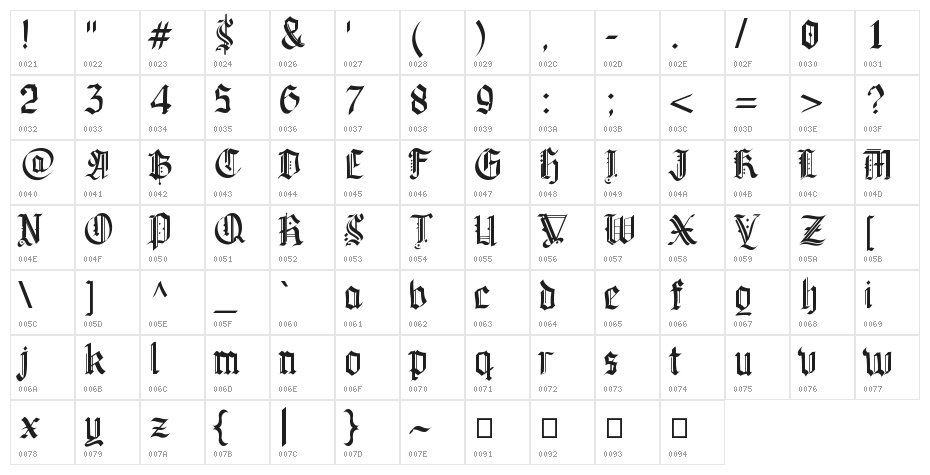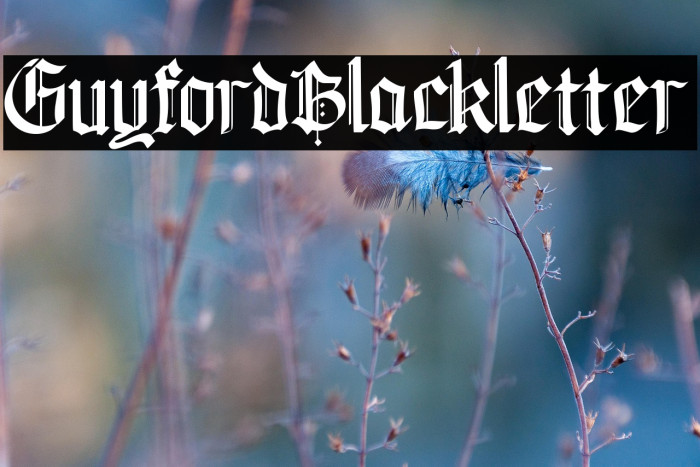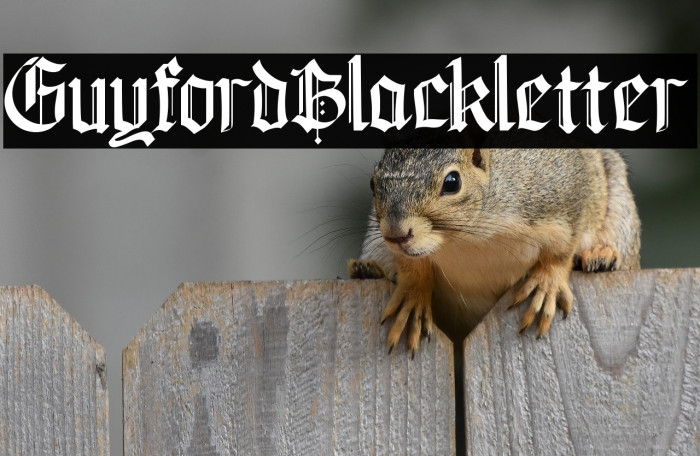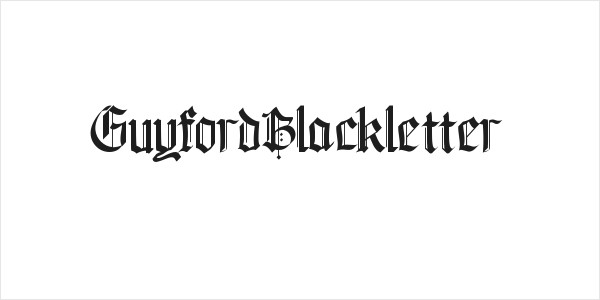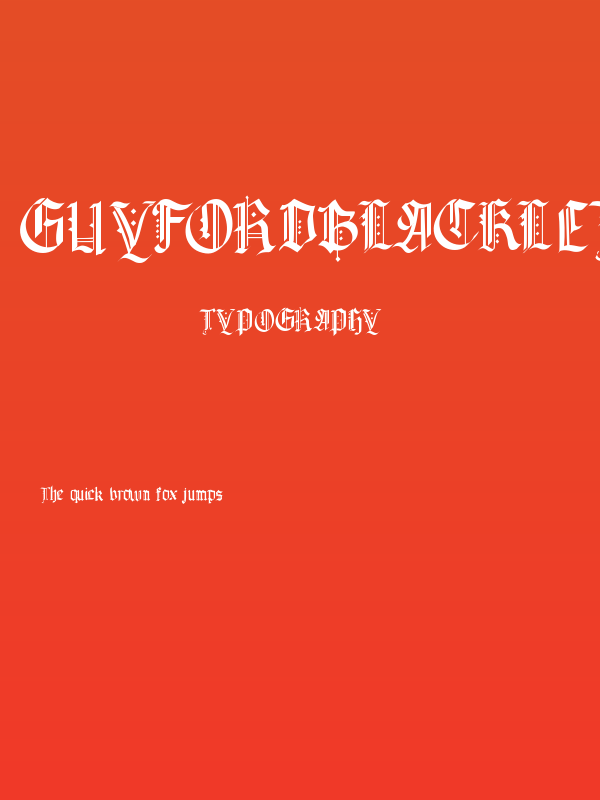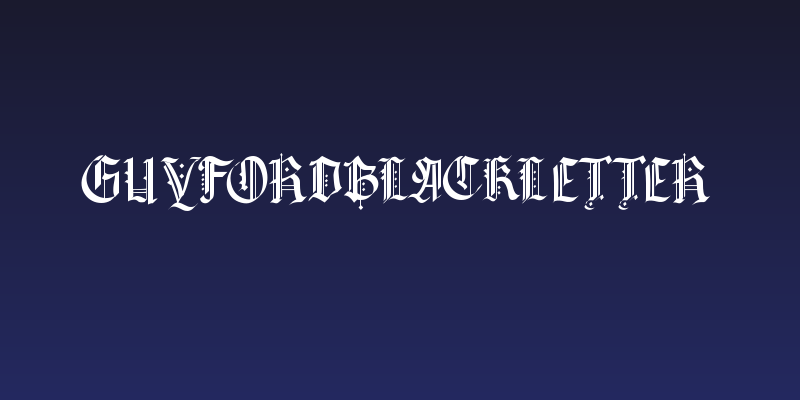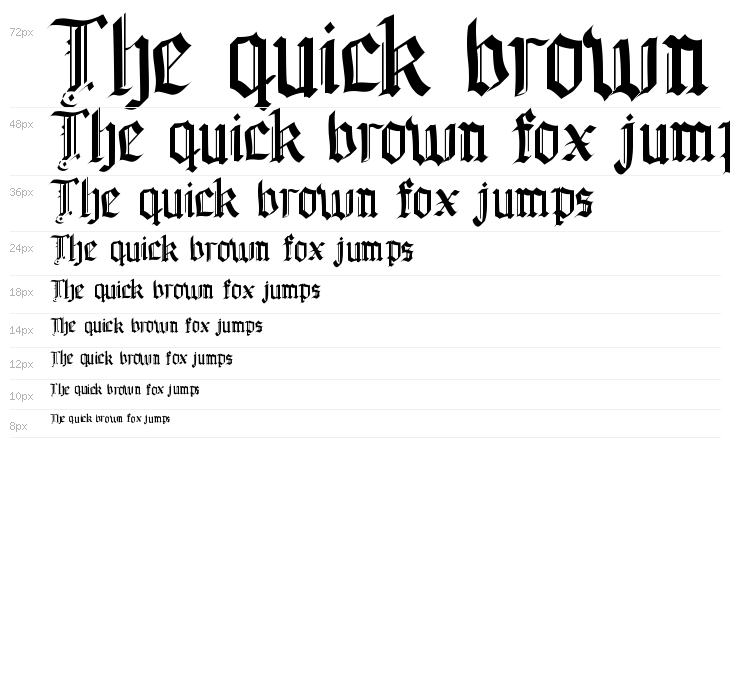
GuyfordBlackletter Font
GuyfordBlackletter Description
This font is a striking example of Blackletter style, characterized by its intricate and ornate design. The uppercase letters exhibit sharp, angular lines with elaborate flourishes, while the lowercase letters maintain a consistent gothic aesthetic. The numerals are equally bold and decorative, fitting seamlessly with the overall medieval theme. Special characters are designed with the same attention to detail, enhancing the font's historical and dramatic appearance. This font is perfect for projects that require a touch of elegance and tradition, such as invitations, certificates, or branding that seeks to evoke a sense of heritage.
Overall StyleVintage
Use CaseLogos, Headlines, Decorative text
Proposed ProjectsIdeal for historical-themed designs, invitations, certificates, and branding that requires a traditional touch.